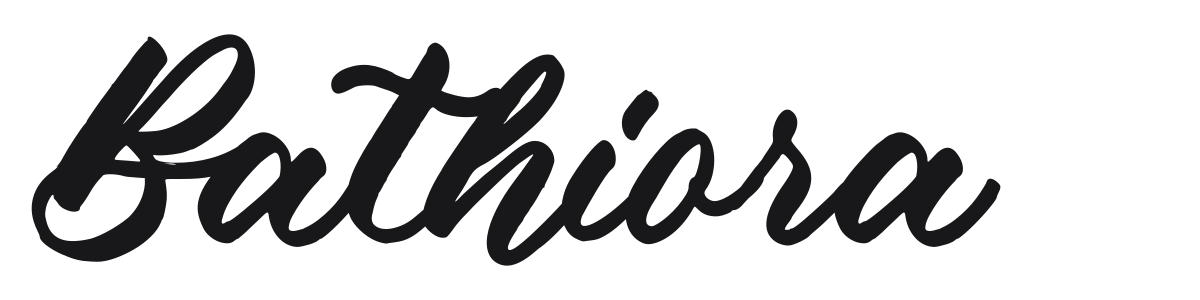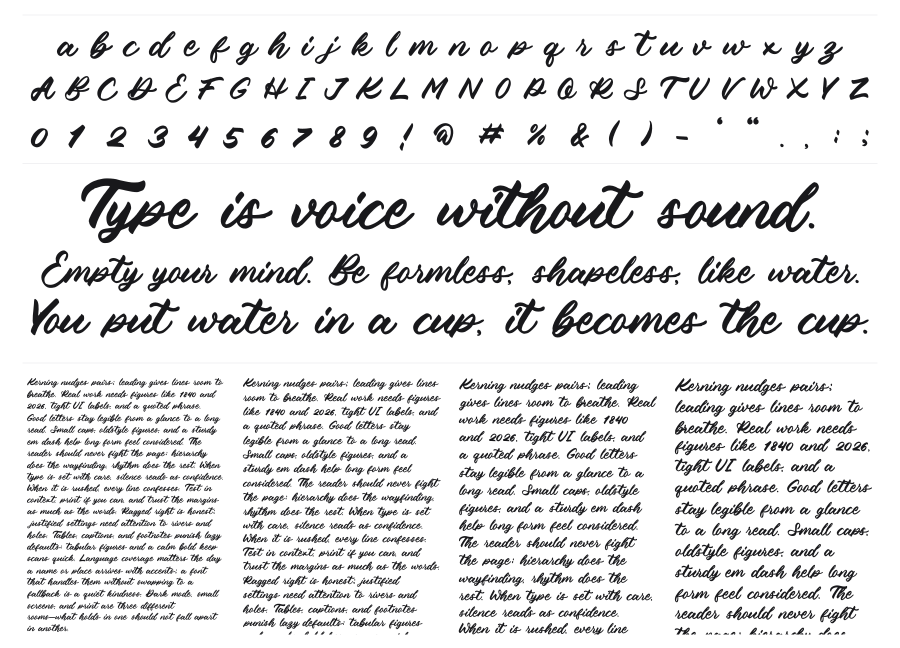
Bathiora
Bathiora is a bold casual script with thick, flowing strokes and a confident hand-lettered energy. The continuously connected letters bounce with personality, making it feel spontaneous without losing legibility at headline sizes. It carries the warmth of mid-century sign painting with a contemporary edge.